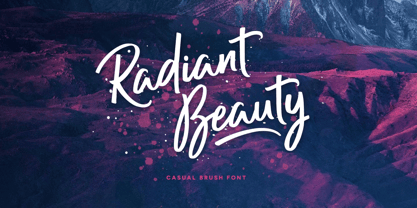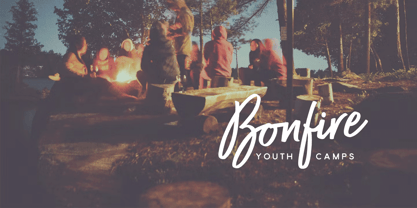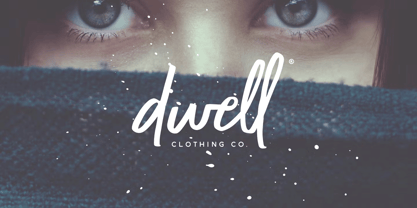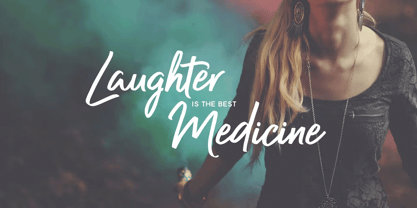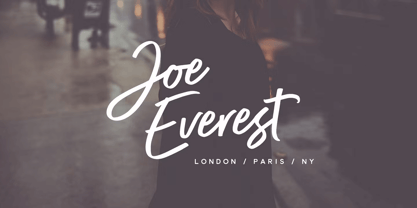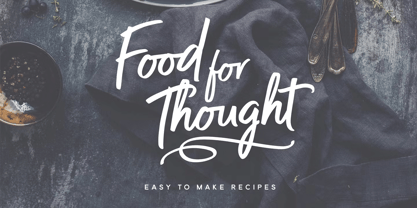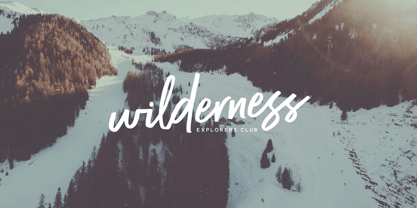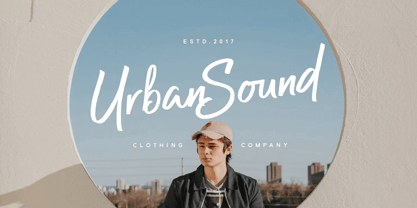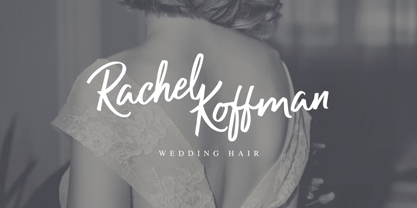
Radiant Beauty
by Ian Barnard
Radiant Beauty is a casual brush font designed to offer the best of both worlds: the charming, authentic look of hand-drawn lettering combined with the essential readability and clarity that clients and customers value. The main typeface was originally hand-drawn using a chisel tip marker, then meticulously refined in Adobe Illustrator and a font editor to ensure each letter is clear while retaining its artistic, hand-crafted character. To further enhance your designs, the font includes OpenType features that seamlessly integrate double letters, adding to its natural, fluid appearance.